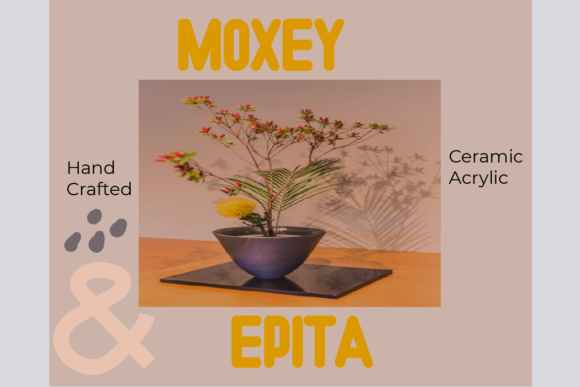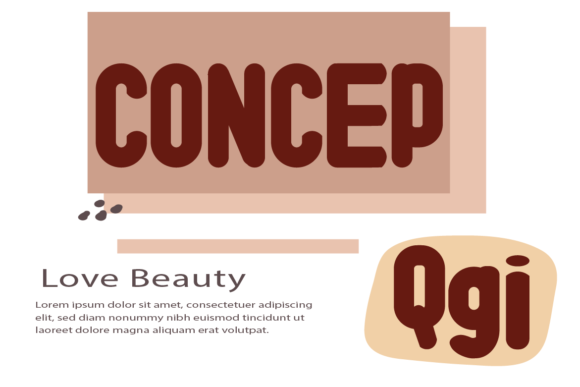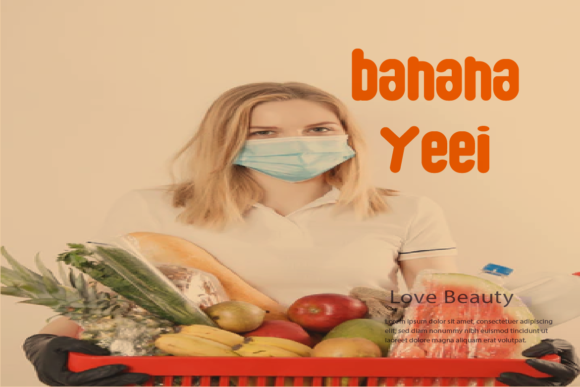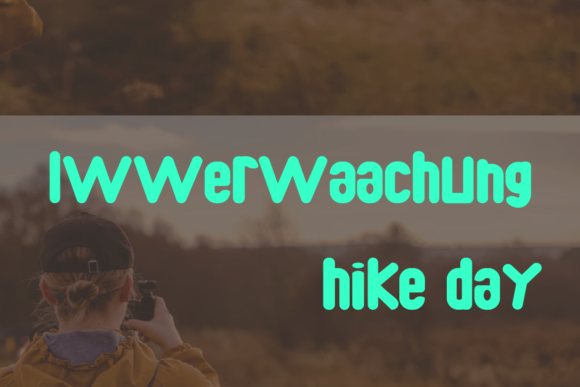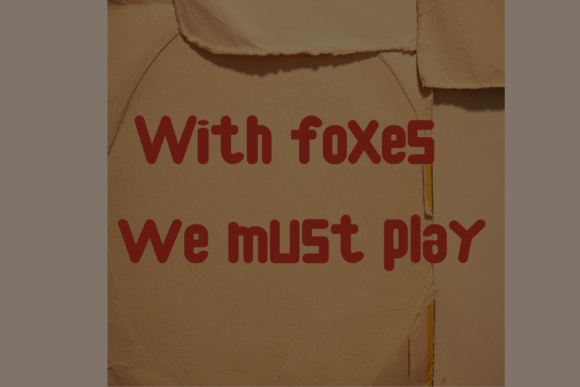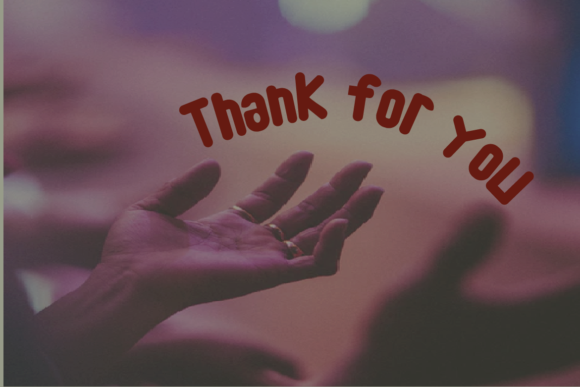
Introducing Apixos Font: The Ultimate Display Font for Bold Creations
Are you tired of using the same old fonts for your designs? Look no further! Apixos Font is here to revolutionize your creative projects with its cool, bold, and thick lettered display font. This minimalist and futuristic font is perfect for designers and crafters who want to make their work stand out from the crowd.
What is Apixos Font?
Apixos Font is a display font that boasts a unique and modern design. Its bold and thick letters make it perfect for headlines, titles, and any other text that needs to grab attention. The font’s minimalist approach ensures that it remains clean and easy to read, even at larger sizes.
Key Features of Apixos Font
- Bold and Thick Letters: Apixos Font features bold and thick letters that make it perfect for display purposes.
- Minimalist Design: The font’s minimalist approach ensures that it remains clean and easy to read.
- Futuristic Look: Apixos Font has a futuristic look that will give your designs a modern and edgy feel.
- Easy to Read: Despite its bold design, Apixos Font is easy to read, even at larger sizes.
Why Use Apixos Font?
There are many reasons why designers and crafters should consider using Apixos Font in their projects. Here are a few:
- Adds Visual Impact: Apixos Font adds a level of visual impact to your designs that is hard to achieve with other fonts.
- Perfect for Headlines: The font’s bold and thick letters make it perfect for headlines and titles.
- Versatile: Apixos Font can be used in a variety of projects, from digital designs to print materials.
- Easy to Pair: The font’s minimalist design makes it easy to pair with other fonts.
How to Use Apixos Font
Using Apixos Font is easy. Here are a few tips to get you started:
- Use it for Headlines: Apixos Font is perfect for headlines and titles. Use it to grab attention and add visual impact to your designs.
- Pair it with Other Fonts: The font’s minimalist design makes it easy to pair with other fonts. Try pairing it with a sans-serif font for a modern look.
- Experiment with Sizes: Apixos Font looks great at larger sizes, but it can also be used at smaller sizes. Experiment with different sizes to find the one that works best for your project.
Apixos Font is a game-changer for designers and crafters who want to add a bold and futuristic touch to their projects. Its unique design, bold and thick letters, and minimalist approach make it perfect for display purposes. With its versatility, ease of use, and visual impact, Apixos Font is a must-have font for any creative project.
- Use Apixos Font for Digital Designs: The font’s bold and thick letters make it perfect for digital designs, such as social media graphics and website headers.
- Try it for Print Materials: Apixos Font can also be used for print materials, such as brochures, posters, and business cards.
- Experiment with Colors: The font’s minimalist design makes it easy to pair with different colors. Experiment with different color combinations to find the one that works best for your project.